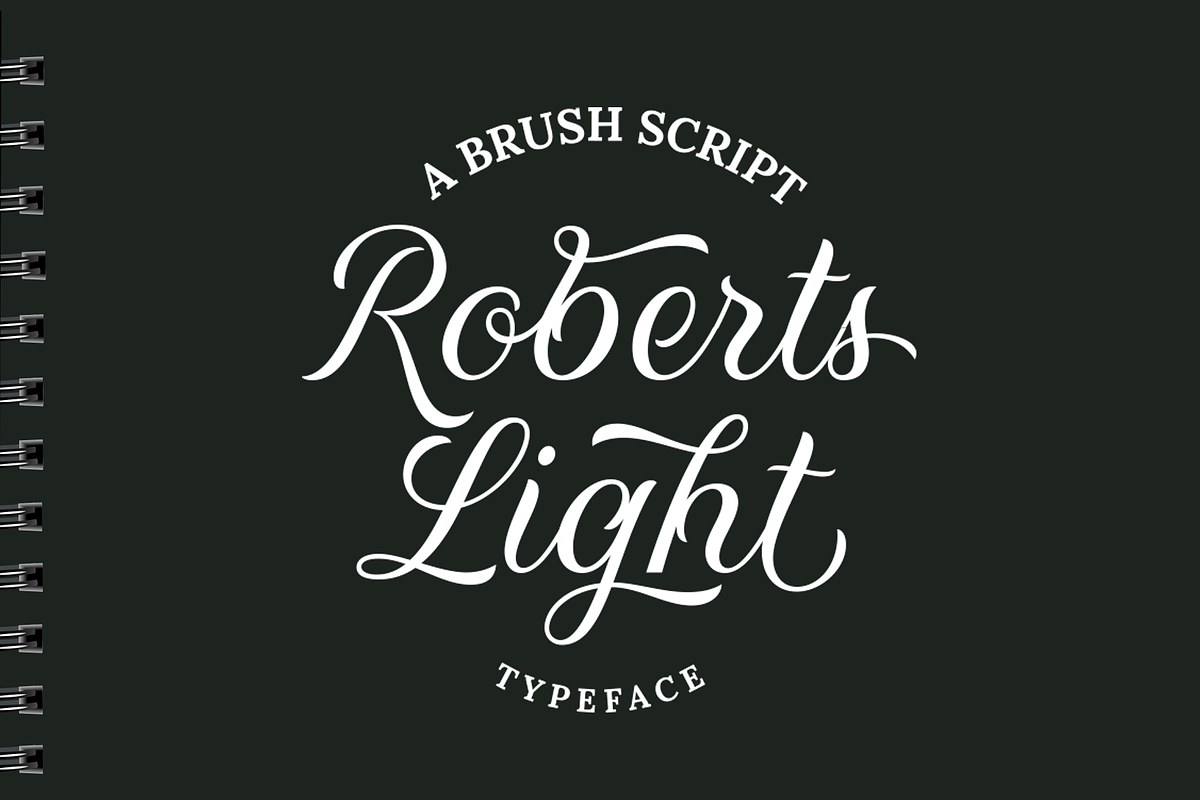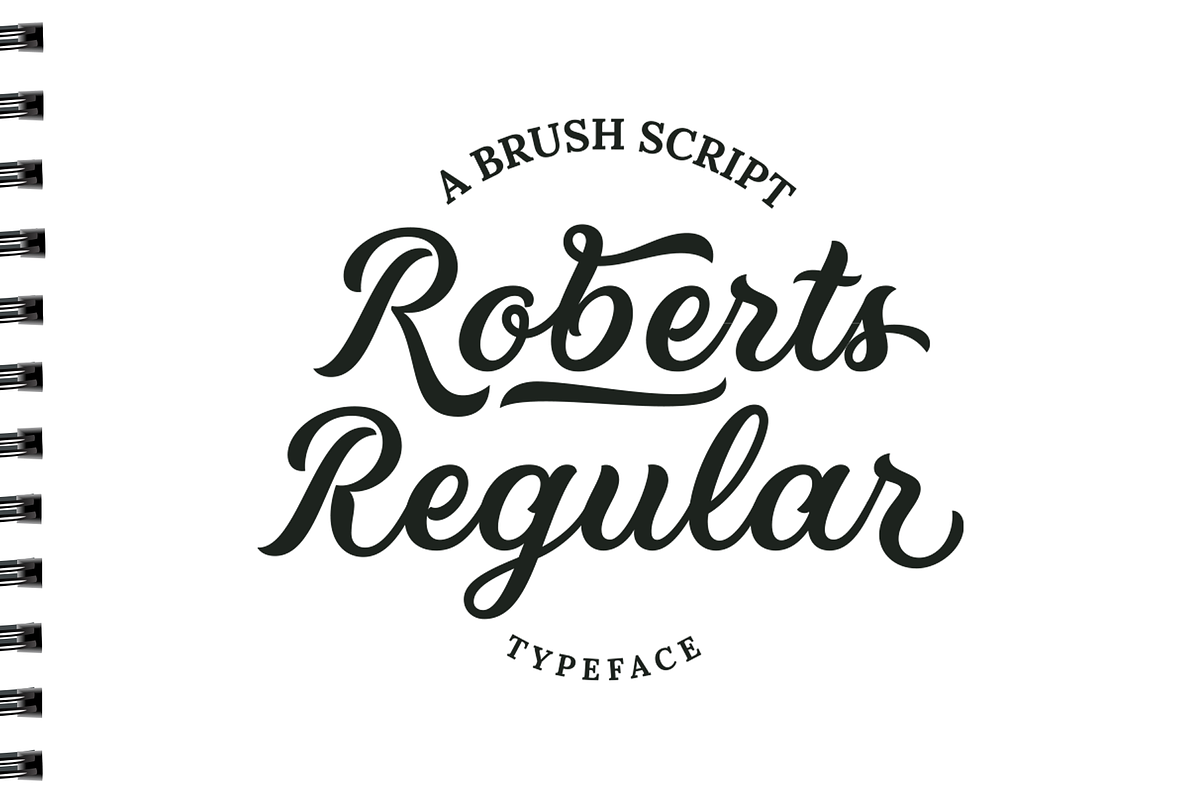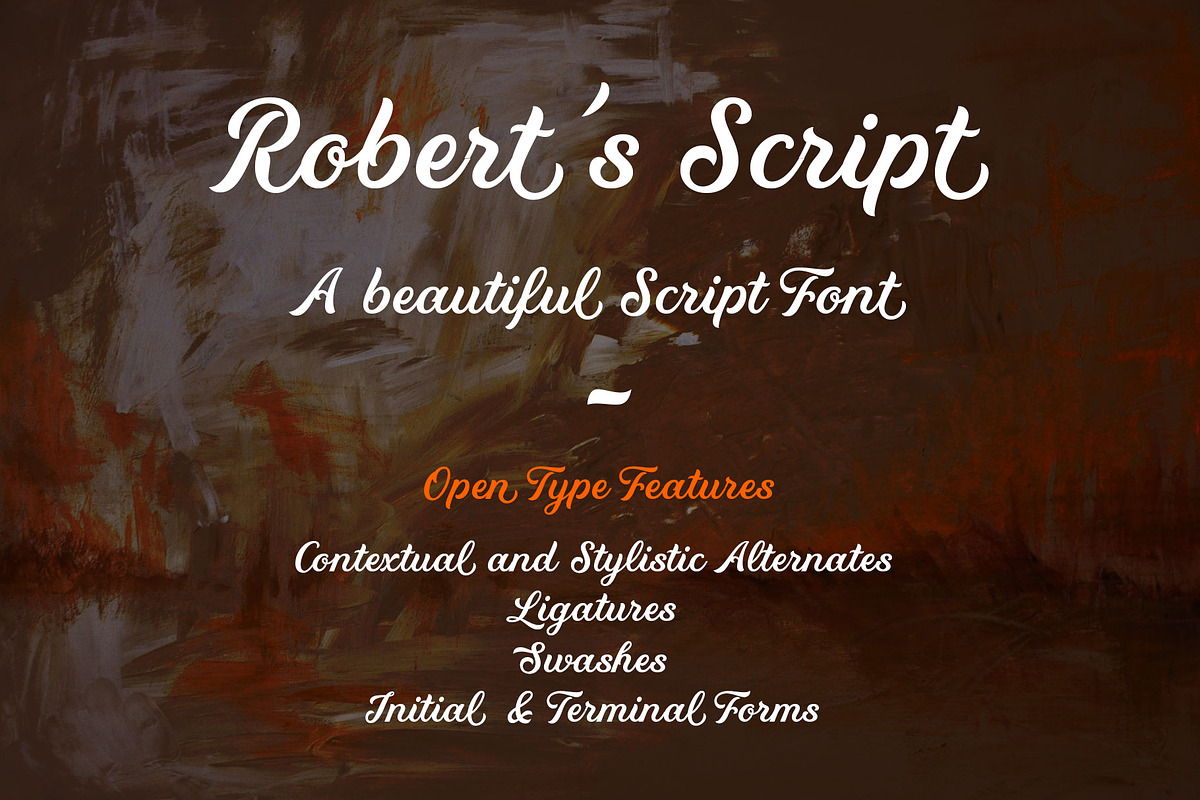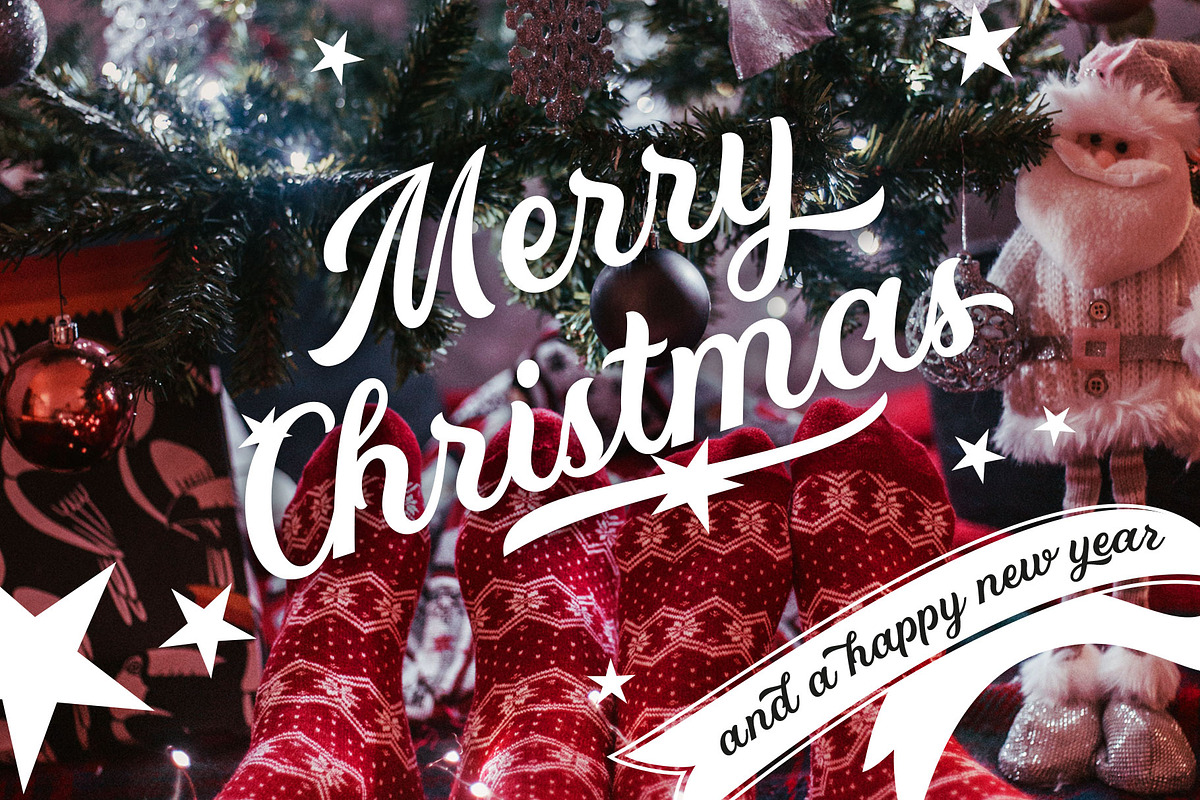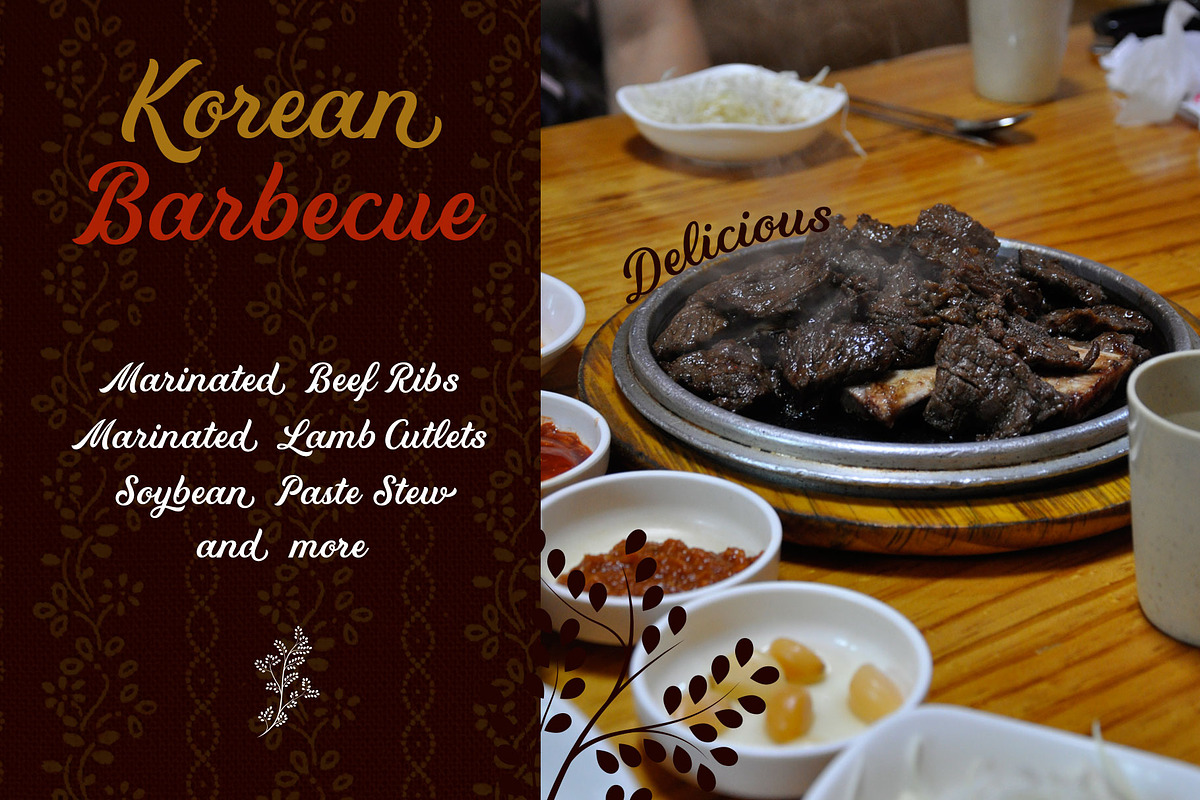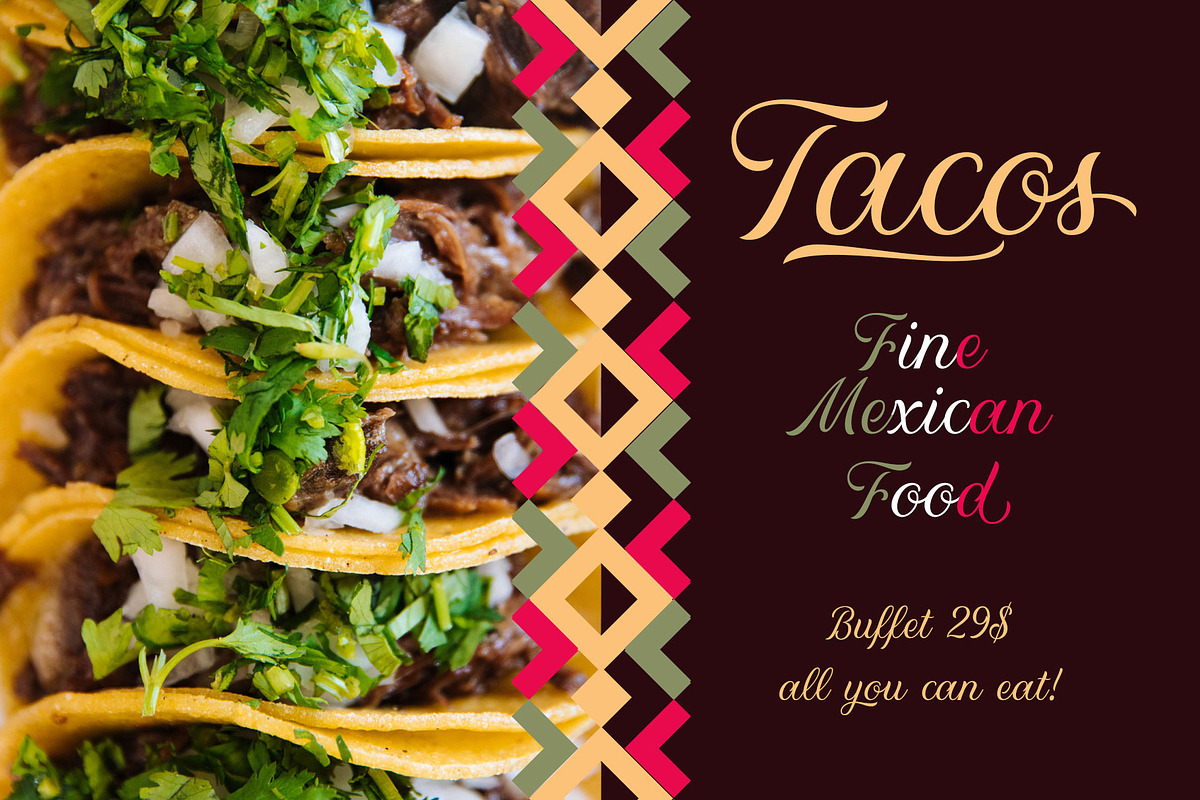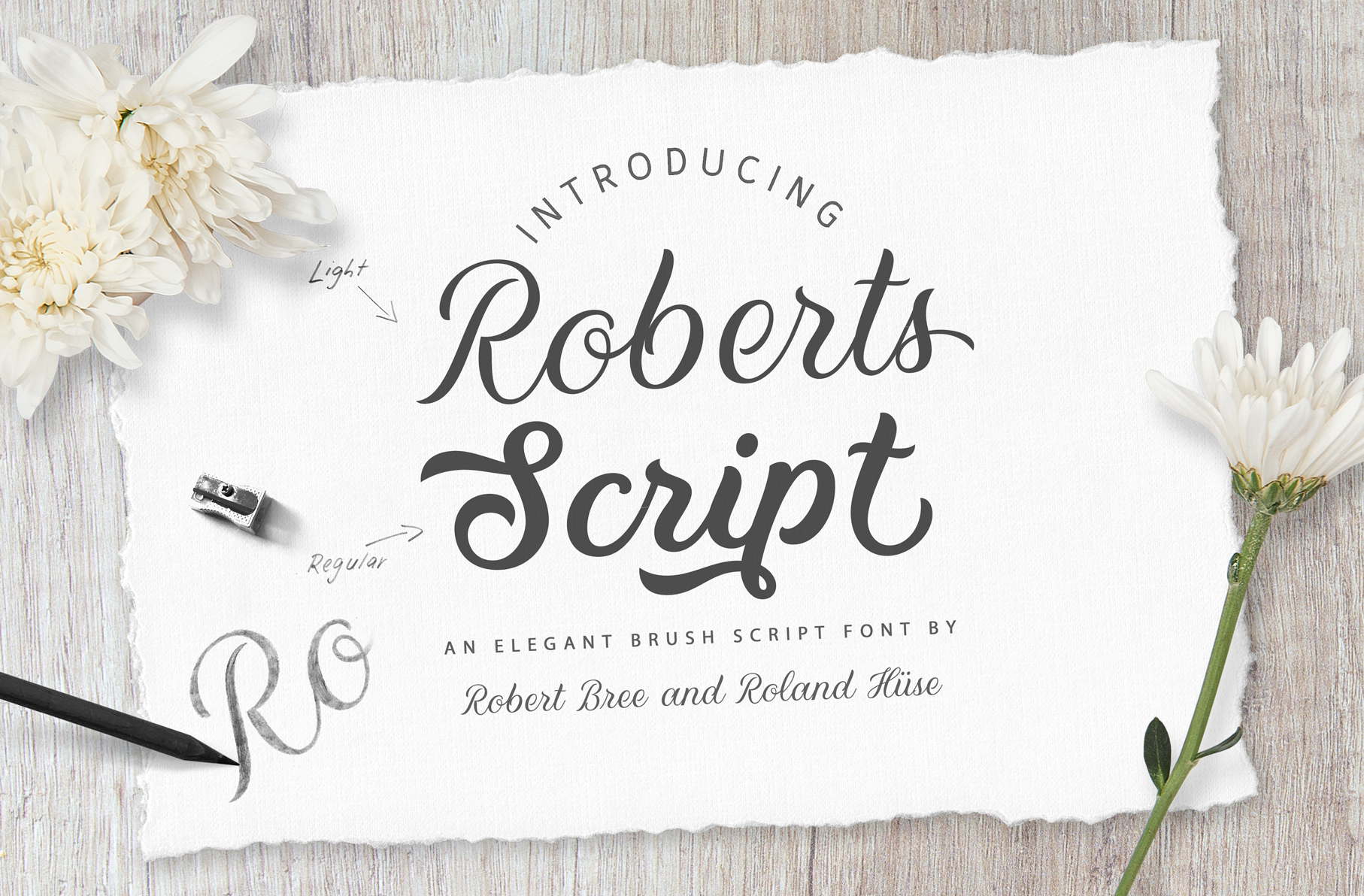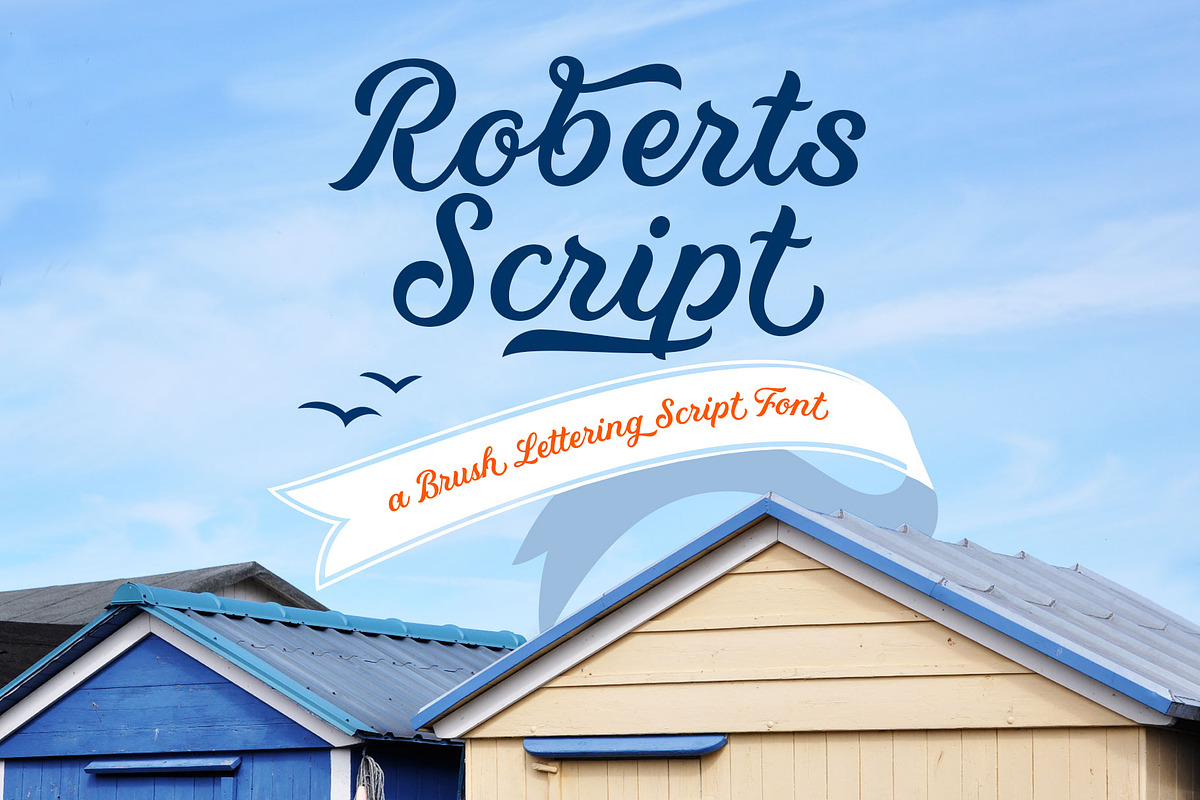
Robert's Script Font Family
Roberts Script is a fresh brush calligraphy Font with a smooth flow. Its stylistic character is based on an elegant brush style. It can be used in various forms of visual communications. It comes in two different weights, a Light and a Regular instance.
Contains Western, Eastern and South Eastern Latin Languages and special characters, OpenType Features such as Ligatures, Terminal Forms, Stylistic Alternates, Contextual Alternates, OId Style Figures, for more details on these please refer to the OpenType Guide pdf at:
Roberts Script is a collaboration between lettering artist Robert Bree https://robertbree.de and typeface designer, Roland Hüse https://rolandhuse.com